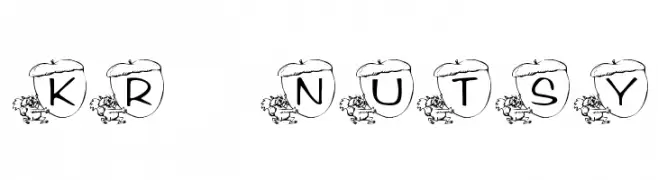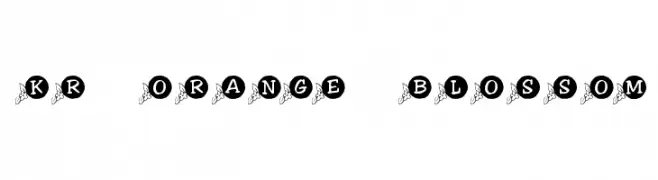
A playful, decorative font with characters inside stylized seed packets.
A decorative serif font with bold letters in circular backgrounds and floral motifs.
A playful font with characters inside black eight-ball designs, ideal for thematic projects.
A decorative font with uppercase letters inside turkey silhouettes.
A whimsical font with garden-themed illustrations accompanying each letter.
A playful font with characters inside balloon shapes, perfect for festive designs.
A playful font with letters inside cartoon acorns, featuring squirrel illustrations.
A playful Halloween-themed font with letters inside black cat silhouettes.
A decorative font with letters inside barbecue grills, perfect for themed designs.
A decorative font with uppercase letters inside tree silhouettes.